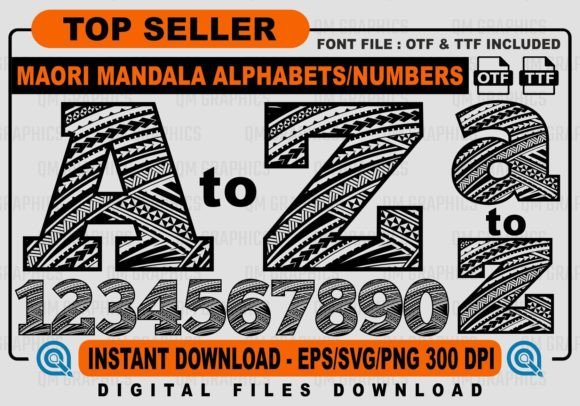
Maori Mandala is an attractive and unique display font that is a true standout, with a distinctive design that sets it apart from the crowd. Each letter is carefully crafted to showcase intricate details and bold, eye-catching shapes. Perfect for adding a touch of personality and flair to your designs, this font is sure to impress.